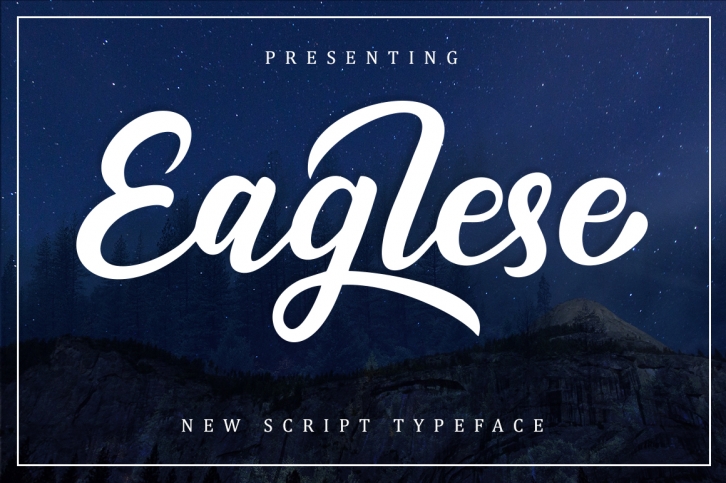
Eaglese Script is a gorgeous font that was realeased on July 10, 2018. The font can be used in many style contexts and design environments. Perfect for invitations, magazines, websites, logos, and more! It was designed by MS GO and the file size is 7.99 MB. Thanks for checking out this font!